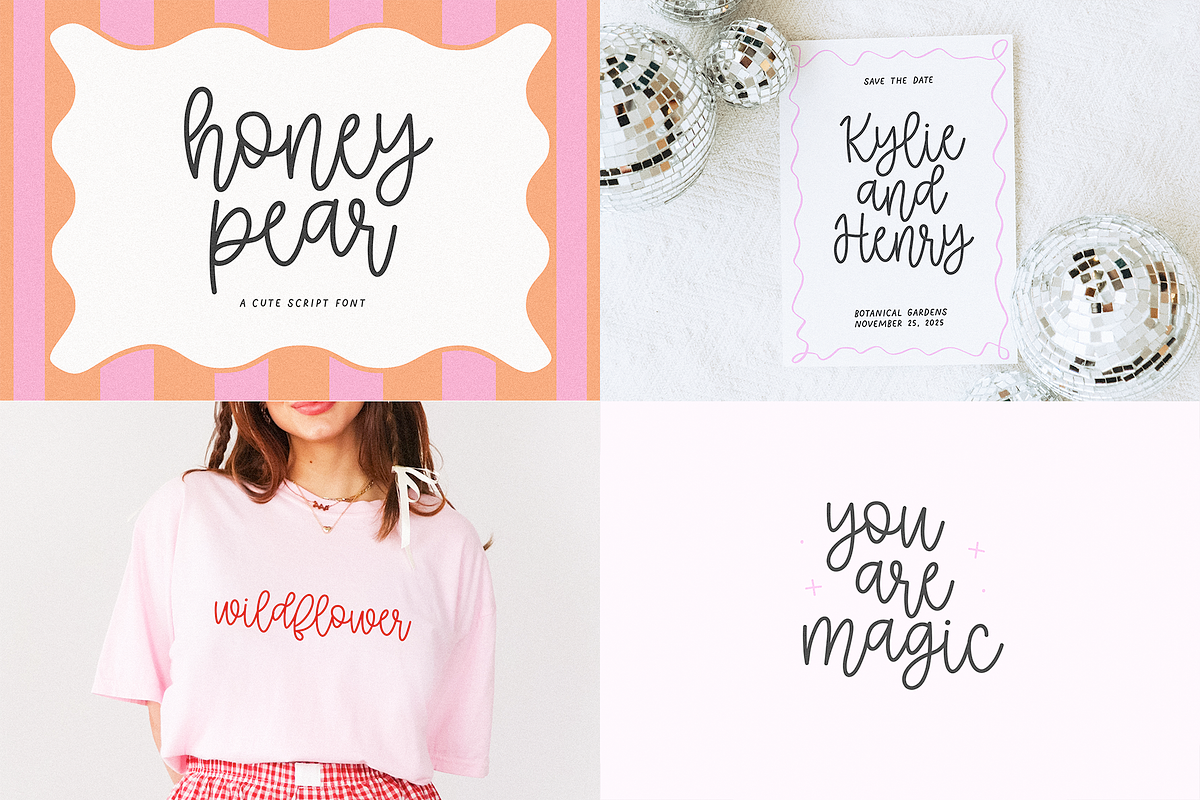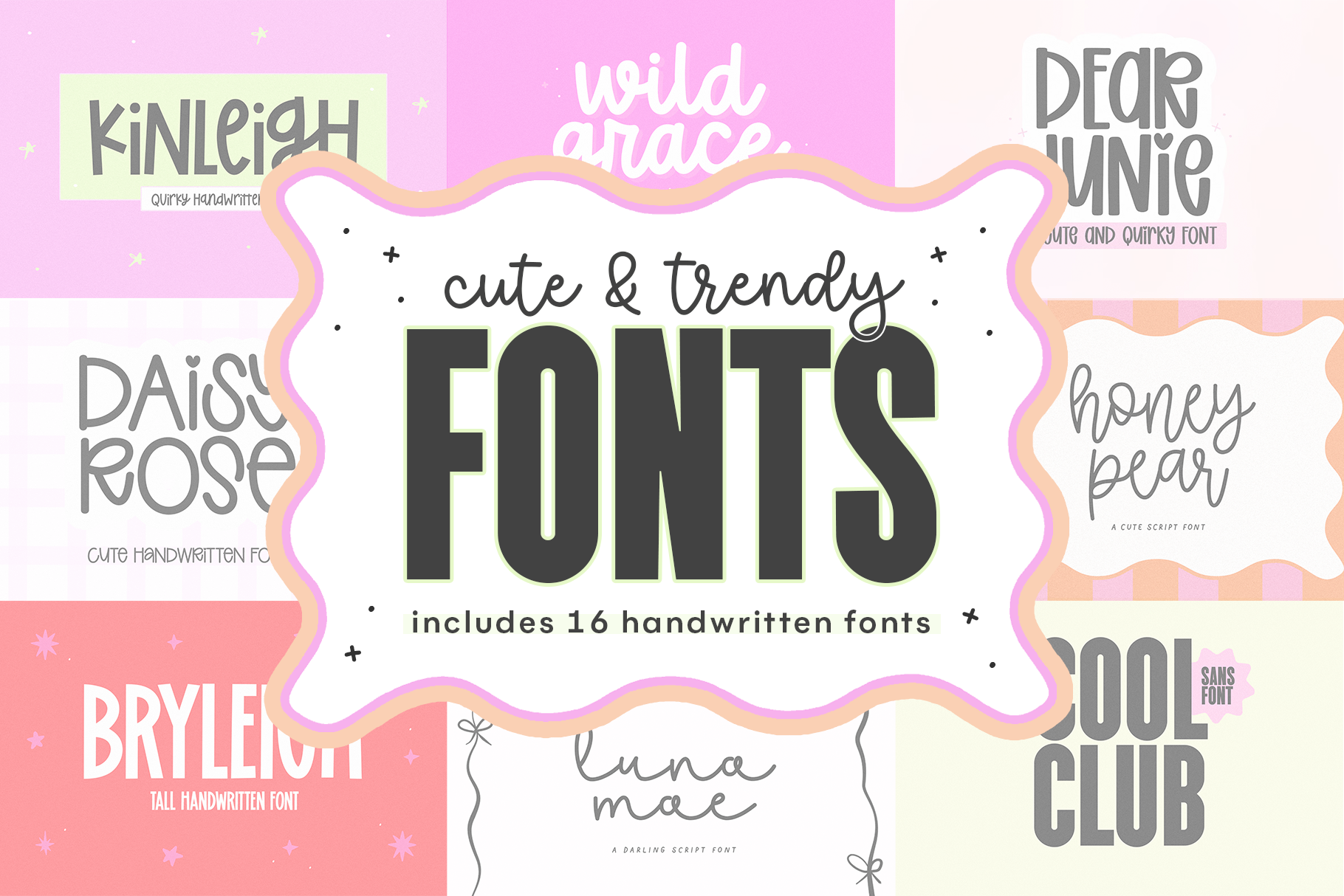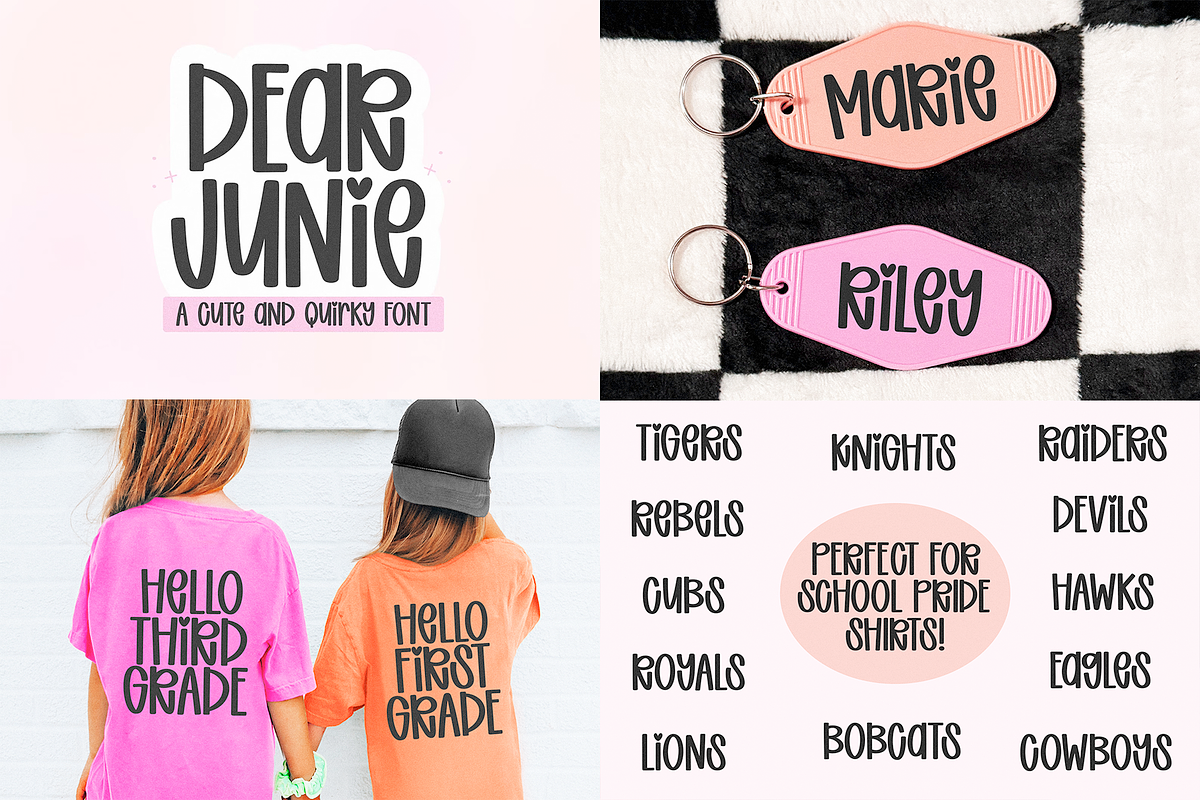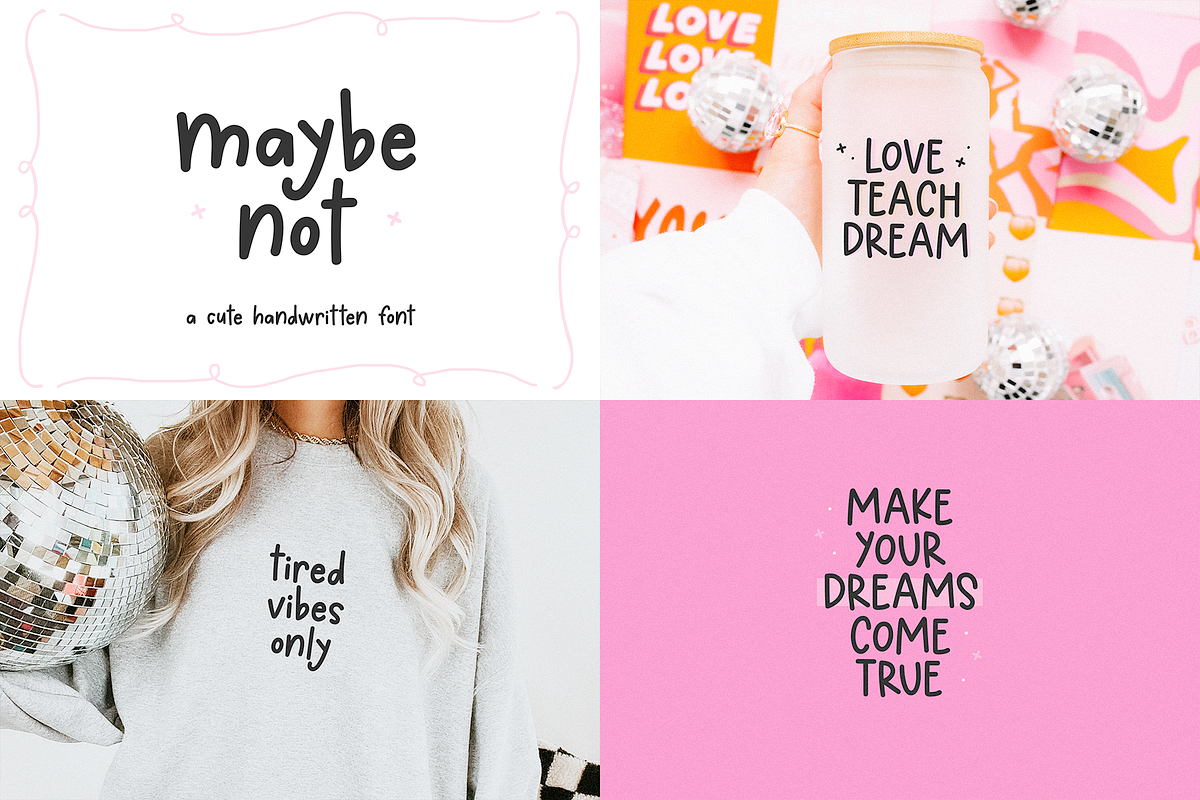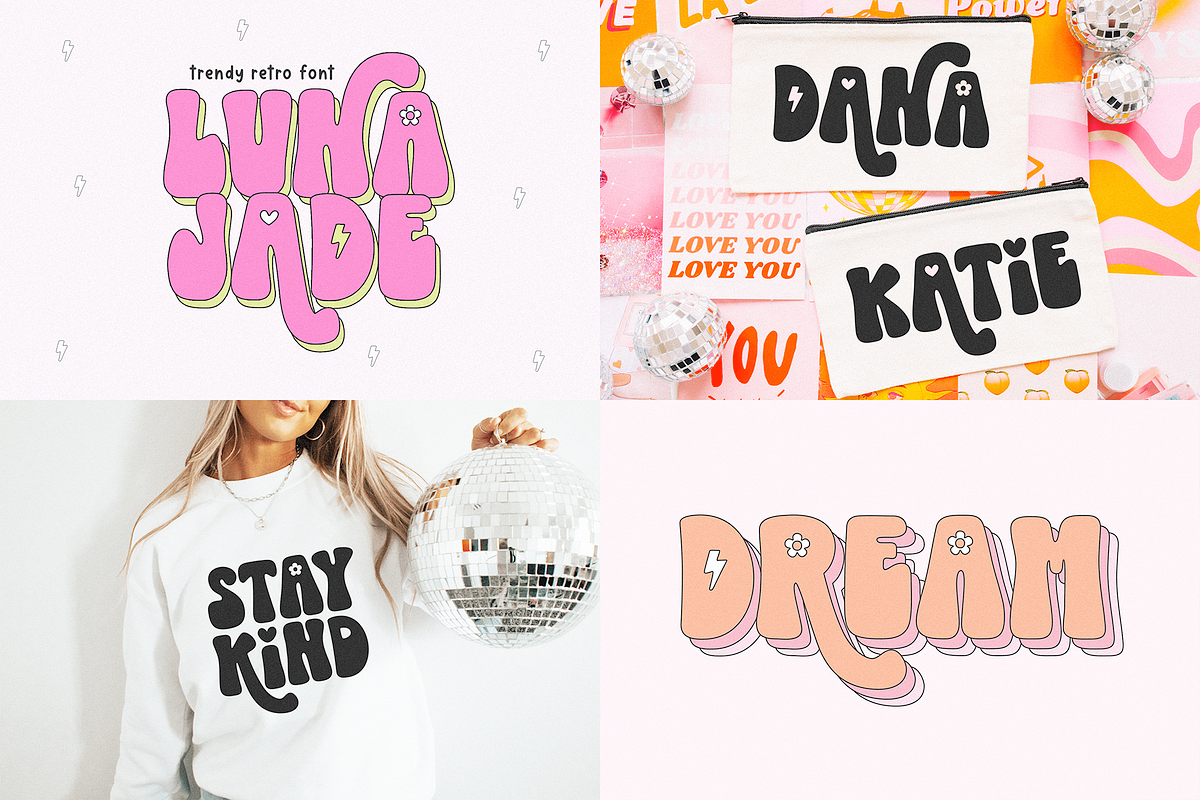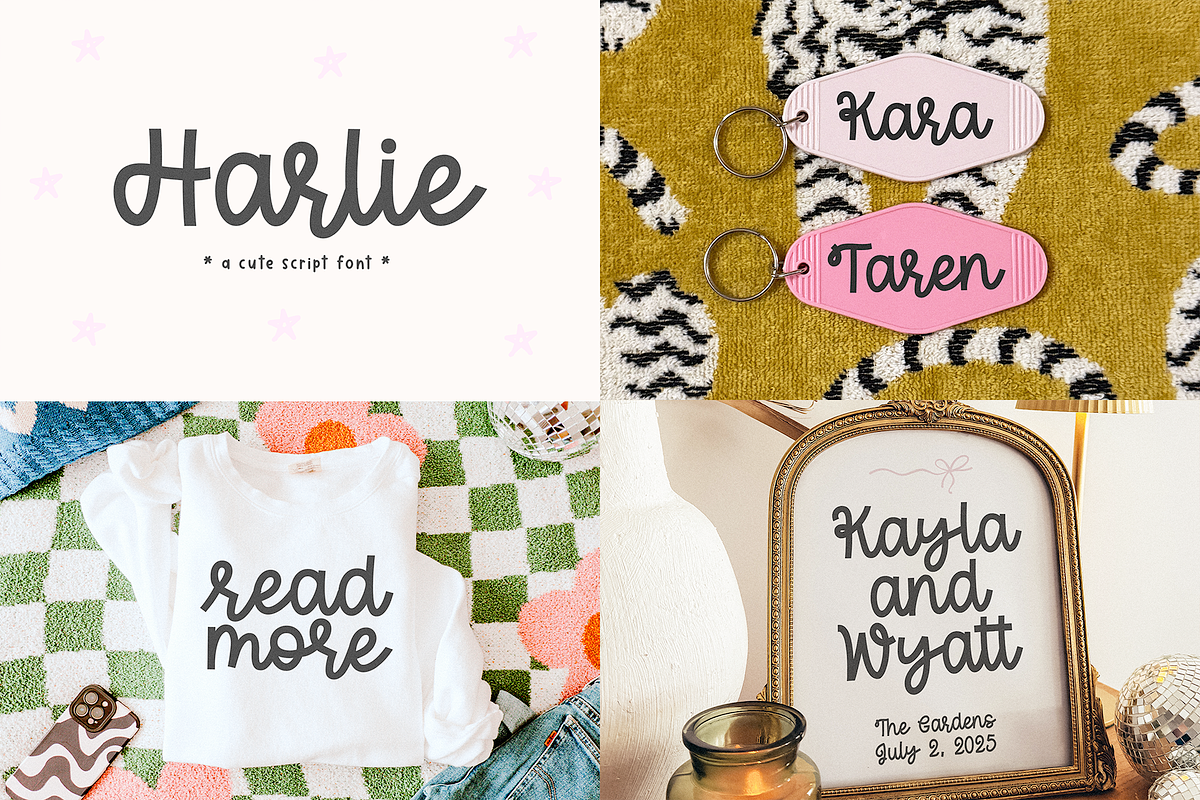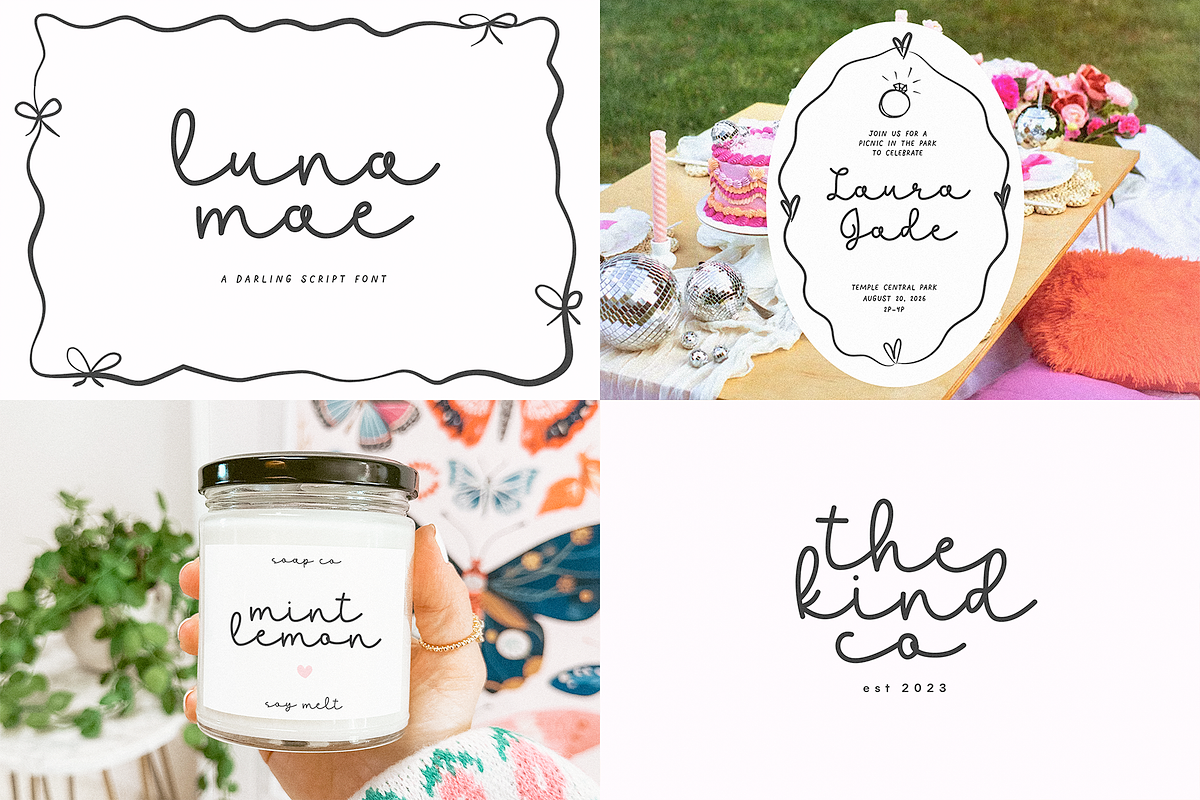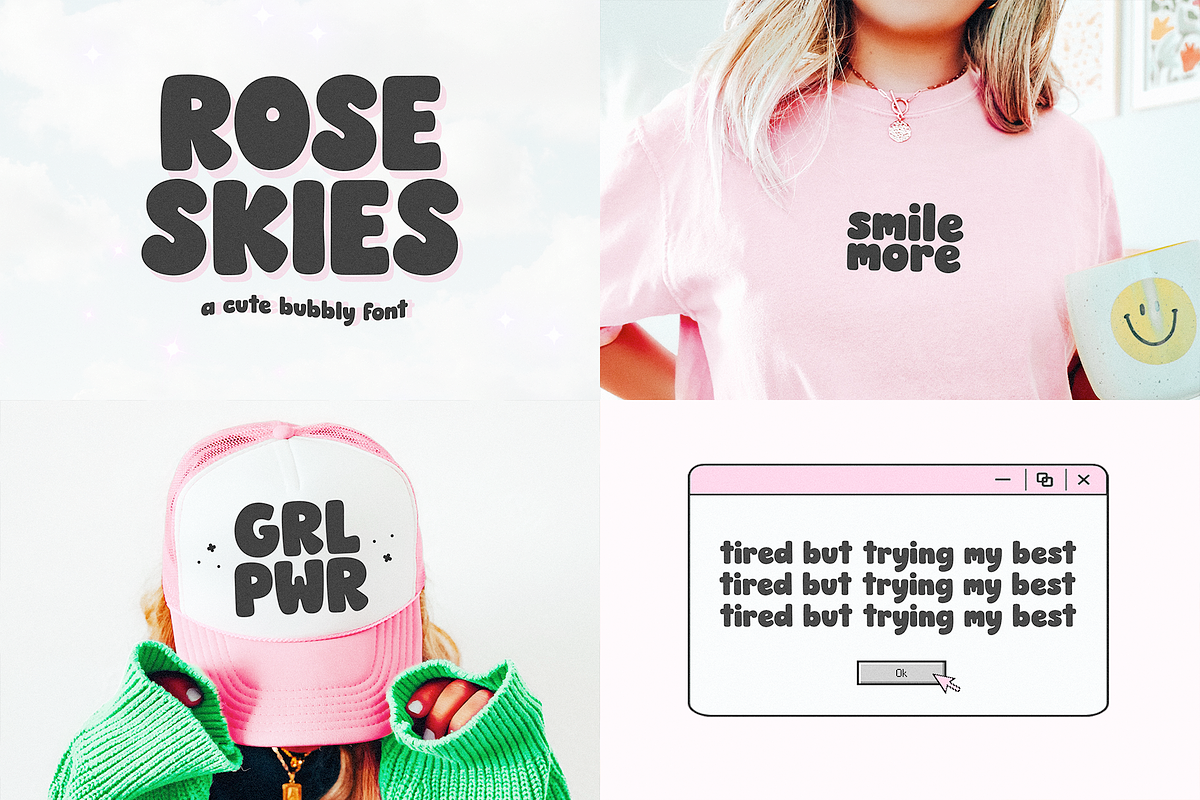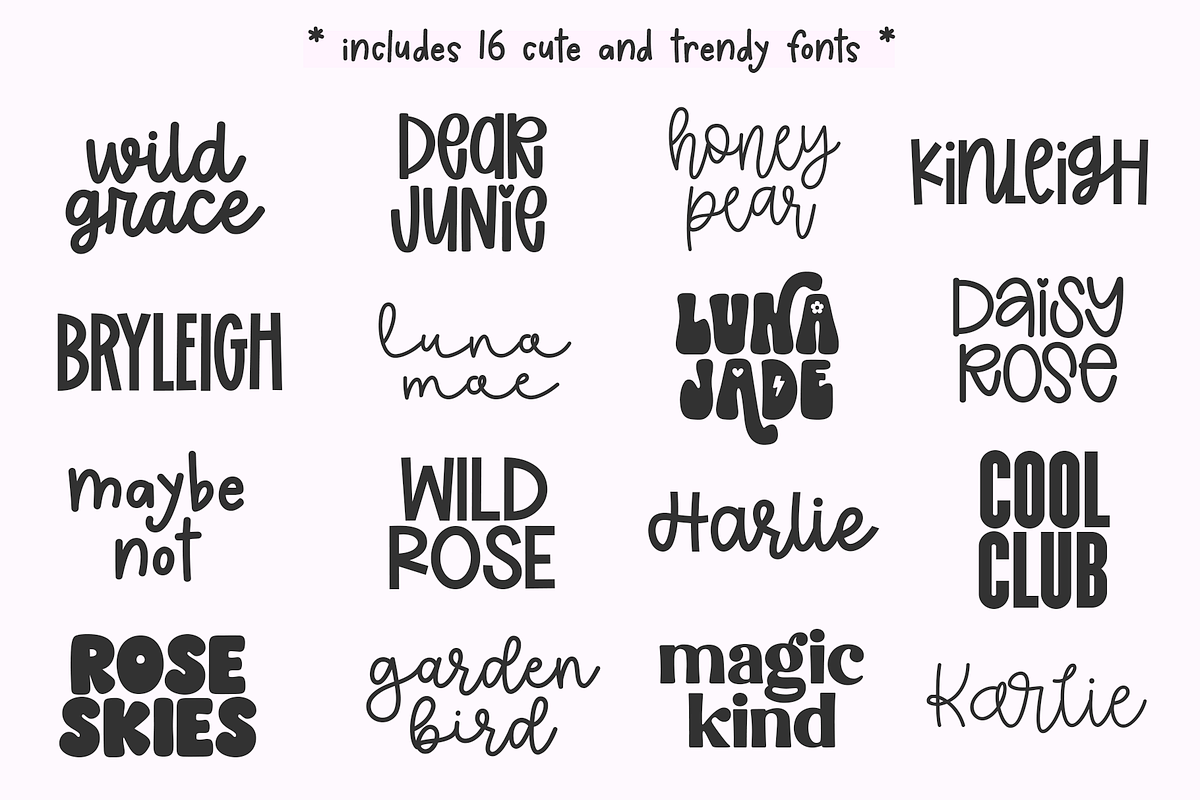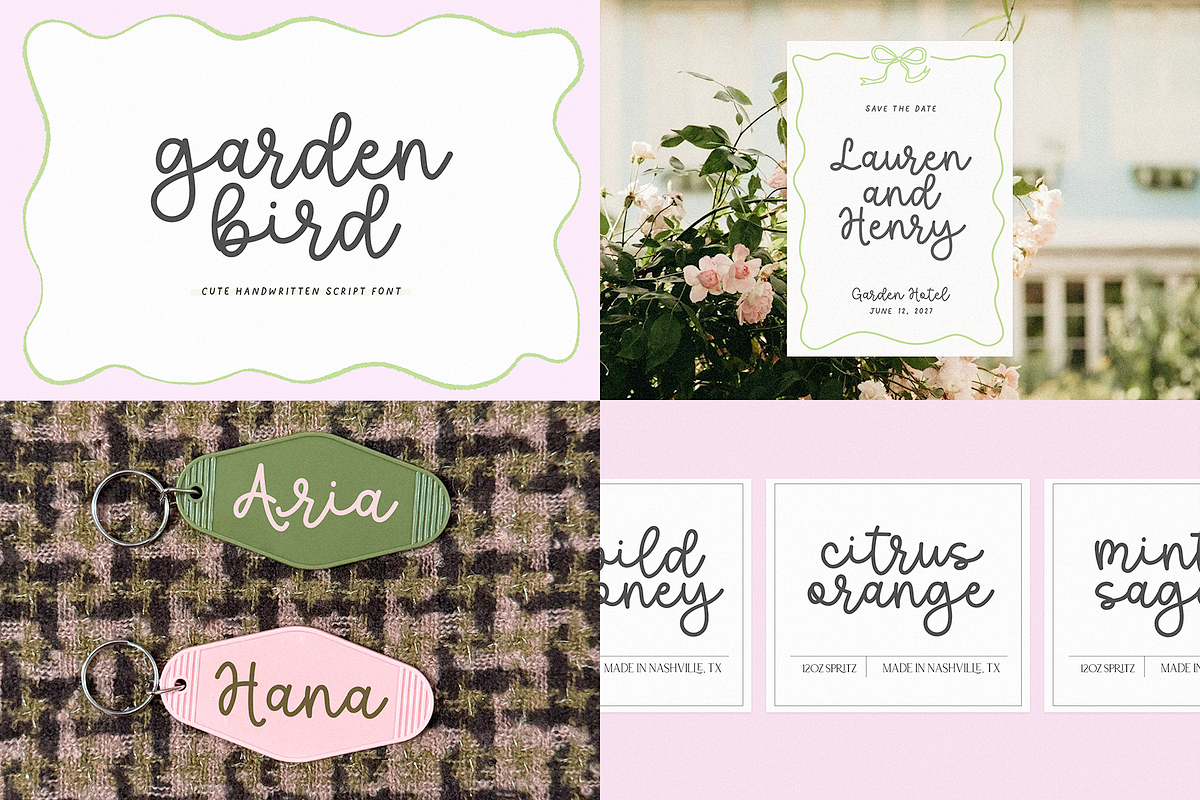
Trendy Font Bundle
CUTE AND TRENDY FONT BUNDLE
This bundle includes a handpicked selection of fonts - a little bit of everything + some new fonts! Even if you already own a font or two, this bundle is still a huge discount!
16 Fonts Included:
- Daisy Rose
- Bryleigh
- Rose Skies
- Karlie
- Dear Junie
- Maybe Not
- Magickind
- Garden Bird
- Harlie
- Luna Mae
- Wild Grace
- Cool Club
- Luna Jade
- Kinleigh
- Honey Pear
- Wild Rose
There are unlimited ways that you can use this bundle!
For example - svg quotes, stickers, cricut projects, farmhouse signs, shirts, mugs, doormats, keychains, door hangers, invitations, branding, social media, logos and more!